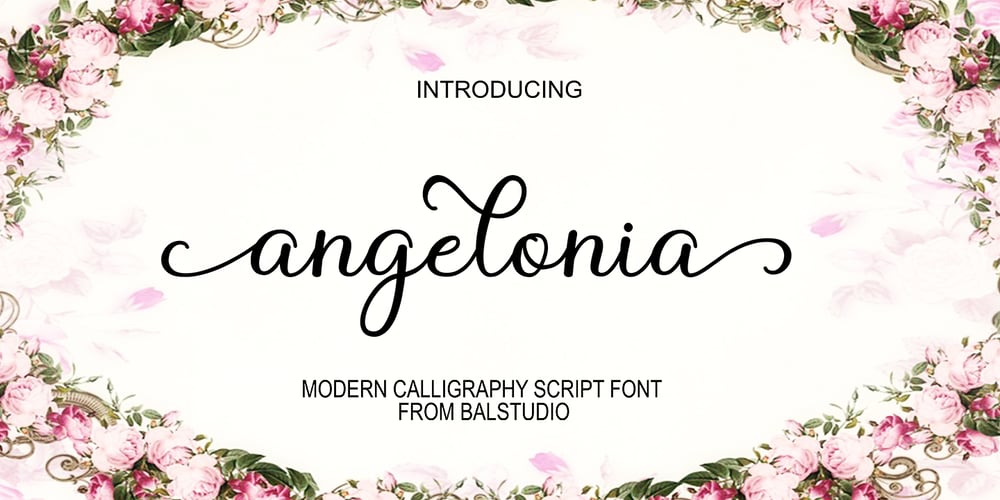
Angelonia Font Family was designed by Iqbal Amsar Hidayat and published by Bal Studio. Angelonia contains 1 styles and family package options. Angelonia is a modern handwritten script with decorative characters wich makes it very suitable to use in blog headers, branding, t-shirts, wedding, social media, product design, stationery, advertising, clothing, book covers, business cards, greeting cards, branding, merchandise, invitations, handmade quotes and more. Angelonia features OpenType stylistic alternates and ligatures. Language Support for most Western Languages is included. To enable the OpenType Stylistic alternates, you need a program that supports OpenType features such as Adobe Illustrator CS, Adobe Indesign & CorelDraw X6-X7, Microsoft Word 2010 or later versions. How to access all alternative characters using Adobe Illustrator: https://www.youtube.com/watch?v=XzwjMkbB-wQ Angelonia is coded with PUA Unicode, which allows full access to all the extra characters without needing special designing software. Mac users can use Font Book , and Windows users can use Character Map to view and copy any of the extra characters to paste into your favorite text editor/app. How to access all alternative characters, using Windows Character Map with Photoshop: https://www.youtube.com/watch?v=Go9vacoYmBw If you have any question, please don’t hesitate to contact me by email.